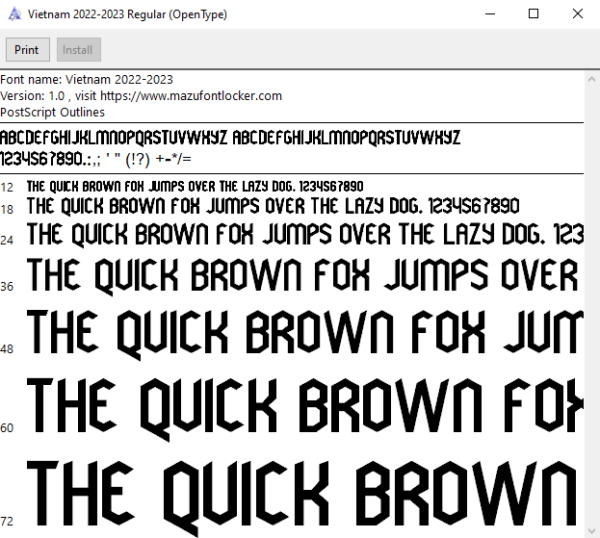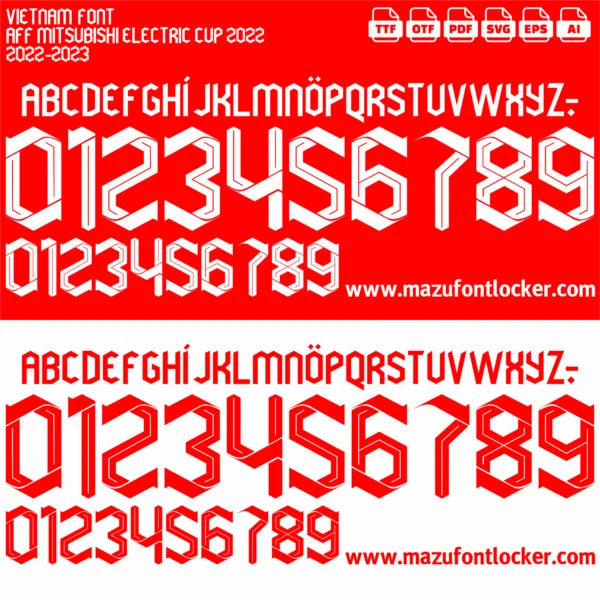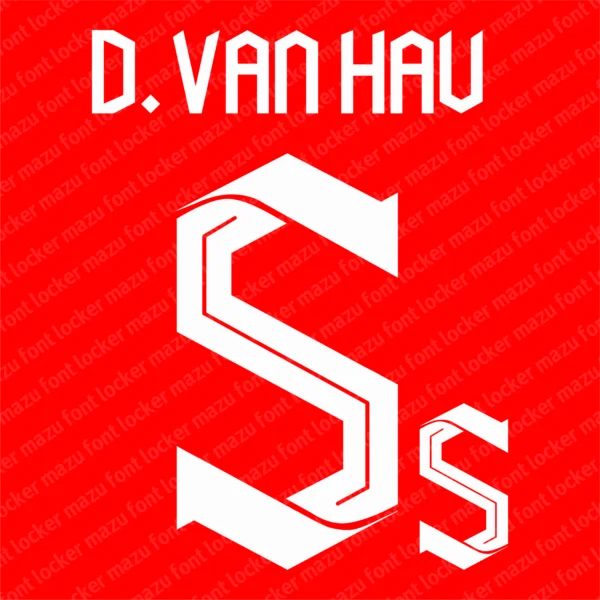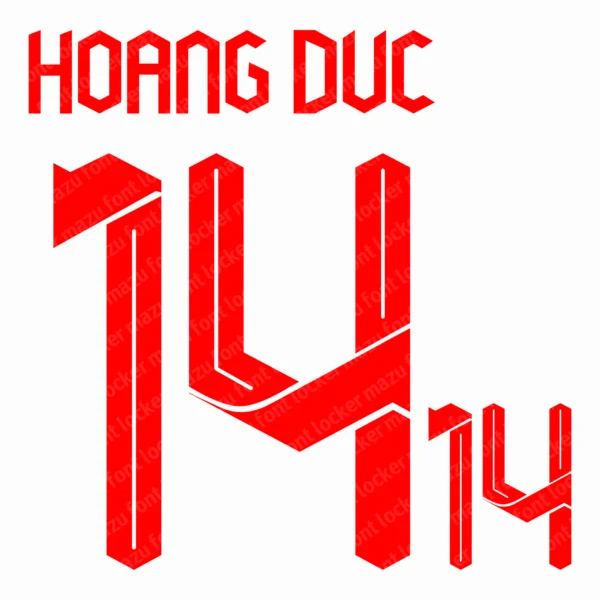
Vietnam 2022-2023 Font Vector – Epic Golden Star Warriors Triumphant Glory
This premium font captures the commanding, iconic, majestic, and battle-ready lettering that embodies the unstoppable Vietnamese spirit — delivering raw Red & Gold fire, explosive winning energy, relentless never-say-die mentality, tactical supremacy, and legendary Golden Star warrior grit.
Vietnam 2022-2023 Font Vector – Authentic Golden Stars Typeface
The Vietnam 2022-2023 Font Vector is a premium typeface that accurately recreates the official match lettering worn by the Vietnamese National Team during the 2022-2023 season. This high-quality vector font kit captures the bold, resilient, and patriotic typography that represents the spirit of the Golden Stars, fighting determination, and remarkable football journey of Đội tuyển Việt Nam.
Designed for professional designers and passionate Vietnamese supporters, the Vietnam 2022-2023 Font Vector delivers perfect authenticity for creating realistic jersey mockups, fan merchandise, matchday posters, social media graphics, and Southeast Asian football content. It pairs beautifully with the iconic red and yellow Vietnam kit, one of the most recognizable national team identities in Asian football.
Why Choose Vietnam 2022-2023 Font Vector
This font stands out because of its sharp vector precision and strong national identity. Every letter and number is crafted to match the exact style used on the players’ shirts during Vietnam’s 2022-2023 campaign. Whether you are creating realistic kit templates or exciting Sao Vàng-themed content, the Vietnam 2022-2023 Font Vector gives your designs that authentic Mỹ Đình Stadium atmosphere.
The letterforms in the Vietnam 2022-2023 Font Vector are bold, clean, and highly readable. The strokes feature elegant geometric construction combined with modern athletic styling and traditional Vietnamese strength, creating a professional appearance that stands out on jerseys while preserving the nation’s football heritage and competitive spirit.
The numerals feature strong curves and sharp, precise edges, delivering a confident and premium appearance. This vector design ensures flawless scalability and excellent legibility across both print and digital applications.
• Full uppercase A–Z and numbers 0–9 in authentic Vietnam 2022-2023 style
• Create highly realistic Vietnam 2022-2023 jersey mockups with accurate lettering
• Produce custom Sao Vàng merchandise with the official 2022-2023 aesthetic
• Includes the exact crest glyph placement used beneath player numbers
Vietnam 2022-2023 Season
The 2022-2023 season was a memorable chapter for Đội tuyển Việt Nam as they continued to make their mark in Asian and international football. Led by dedicated players and fueled by the passionate support of Vietnamese fans, the Golden Stars squad showcased their trademark resilience and team spirit both at home and on the road.